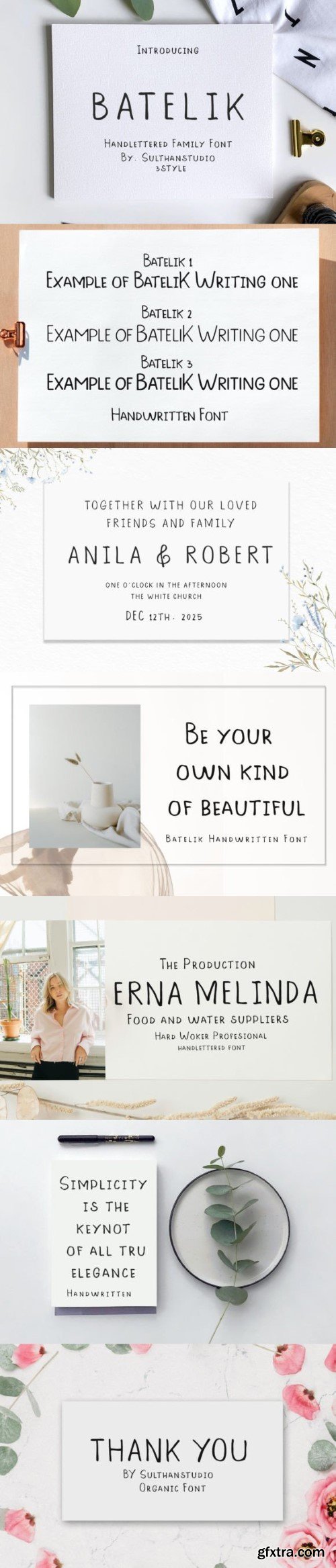
Batelik -This is handwriting on paper using a pen and then we turn it into 3 styles such as regular Batelik which is original or natural handwriting without being cleaned or tidied up.
It’s very modern and minimalist, it’s really cool and it’s amazing and you can try it for the job you’re doing.